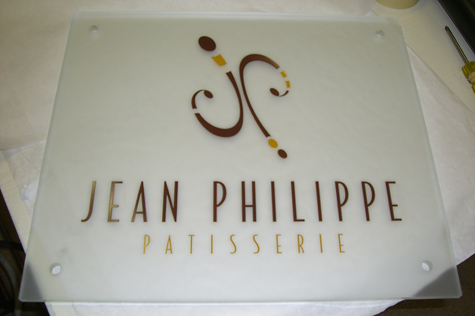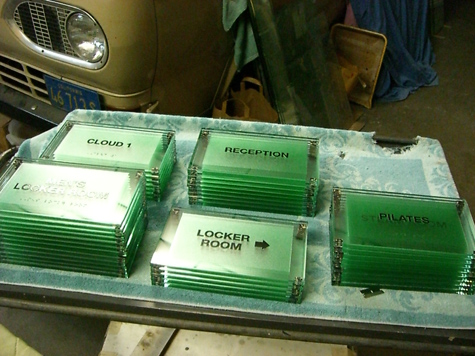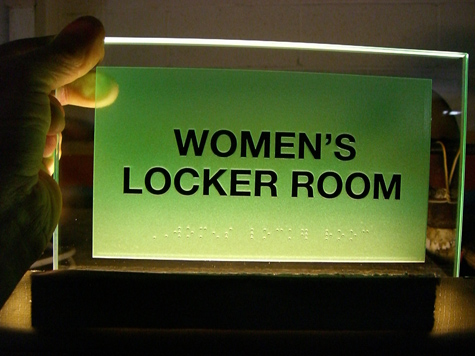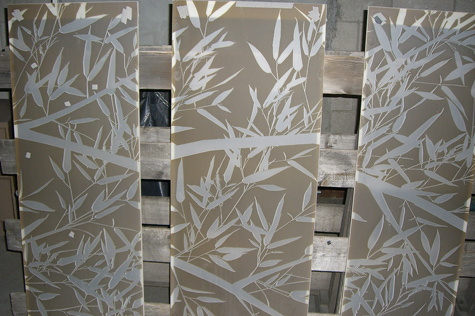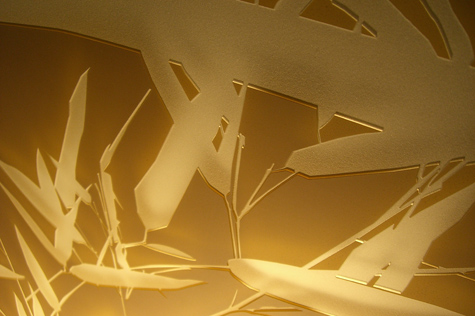
Screen Printing_One Shot Paint
I was wondering if anyone has experience trying to screen print with One-Shot and would care to share their experience?
Re: Screen Printing_One Shot Paint
Yes, I have screen printed with One Shot. It can be done. Use it right from the can without thinning. Use a fine mesh screen, between 110-250.
Print off contact, use a screen that is tight and snaps away right behind the squeegee and use a fairly sharp edged squeegee of medium hardness. When you are ready to print, pour on only enough paint to flood the screen initially and enough of a remaining paint bead to do several prints. You want to first flood the screen and then add only small amounts of paint as you go. The reason is because the One Shot works best in printing when it thickens up a bit, so first flood the screen and wait a few seconds before you pull, then add only small amounts so they can also flash off a little. Flood the screen before each print. When the fine mesh screen pops away from the printed surface, there will be fine small bubbles, but they will pop and smooth away- as long as you don't speed dry them or place then in front of a fan.
I use the above method to top print raised glass letters created by sand blasting the background away evenly. I do these with a totally open screen. No screen emulsion is used since the signs are all different. After several pulls, there will be a build up of paint in the screen. I even it out by doing a print on a scrap piece of glass, then resume the signs. Do this step whenever the screen loads up to avoid the paint from running down the raised letters.
Thus, letters, logos, and ADA become raised and can be screen printed as pictured here.
Print off contact, use a screen that is tight and snaps away right behind the squeegee and use a fairly sharp edged squeegee of medium hardness. When you are ready to print, pour on only enough paint to flood the screen initially and enough of a remaining paint bead to do several prints. You want to first flood the screen and then add only small amounts of paint as you go. The reason is because the One Shot works best in printing when it thickens up a bit, so first flood the screen and wait a few seconds before you pull, then add only small amounts so they can also flash off a little. Flood the screen before each print. When the fine mesh screen pops away from the printed surface, there will be fine small bubbles, but they will pop and smooth away- as long as you don't speed dry them or place then in front of a fan.
I use the above method to top print raised glass letters created by sand blasting the background away evenly. I do these with a totally open screen. No screen emulsion is used since the signs are all different. After several pulls, there will be a build up of paint in the screen. I even it out by doing a print on a scrap piece of glass, then resume the signs. Do this step whenever the screen loads up to avoid the paint from running down the raised letters.
Thus, letters, logos, and ADA become raised and can be screen printed as pictured here.
Re: Screen Printing_One Shot Paint
Beautiful work Pat...I guess I'm curious as to "why" screen print with one shot. Am guessing for almost every purpose the probably better solution is to use screen inks.
Re: Screen Printing_One Shot Paint
The only reason that I use OneShot for printing (in a pinch) is that I don't do that much screen printing. So rather than store screen inks/special ink solvents and lettering paints that dry out over time, I just keep the paints which I can practically mix to match any PMS color. Being in California, that is the simple answer.
Less of a "fire load" in the eyes of the local fire department.
The only reason that I use OneShot for printing (in a pinch) is that I don't do that much screen printing. So rather than store screen inks/special ink solvents and lettering paints that dry out over time, I just keep the paints which I can practically mix to match any PMS color. Being in California, that is the simple answer.
Less of a "fire load" in the eyes of the local fire department.
Re: Screen Printing_One Shot Paint
hi pat, and i'm curious as to how you get such an even blast on the bkgd, which i assume is carved because of the brille...........thanks for sharing !
Re: Screen Printing_One Shot Paint
Vance,
Long about 15 years ago I won a big job to etch hundreds of names into big thick tempered glass panels. They were serifed letters and the architect specified that the letters be highly prismatic as if each was hand chiseled. (I actually just remembered that I was referred by a German trained stone carver friend of mine who wisely declined the job).
Well, I knew that I did not want to do those big panels by hand with such a short turn around time. so I sketched out and built an electric powered sand blast machine in two weeks. It was a gamble to spend precious sand blast time, building an automated machine to do the job, but the whole thing worked out great. And I still use it on jobs today. I use it on glass and also fine stone.
Because it does such an even job, I can deep etch tempered glass as shown in these photos. These bamboo panels were deep etched and then painted while the photo resist was still in place. After drying, the resist was lifted away leaving a crisp clean design.
Re: Screen Printing_One Shot Paint
Why couldn't you thicken the One Shot with paint thickener ? Fumed Silica perhaps?